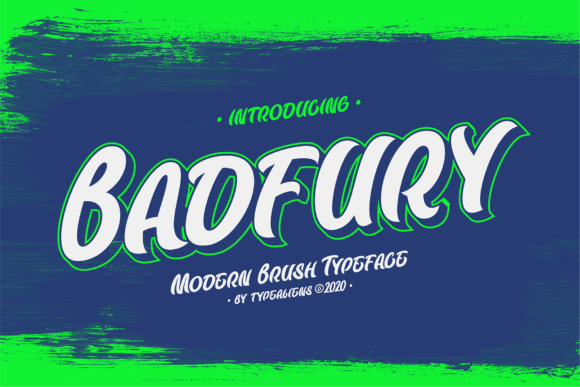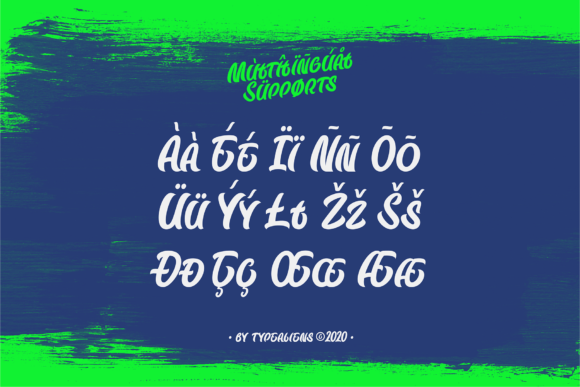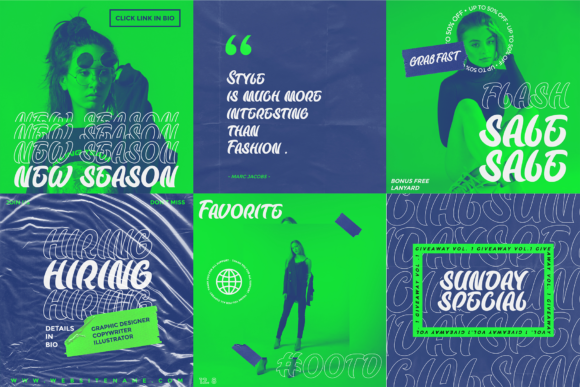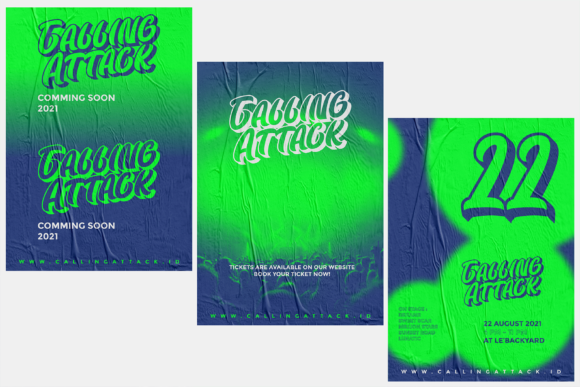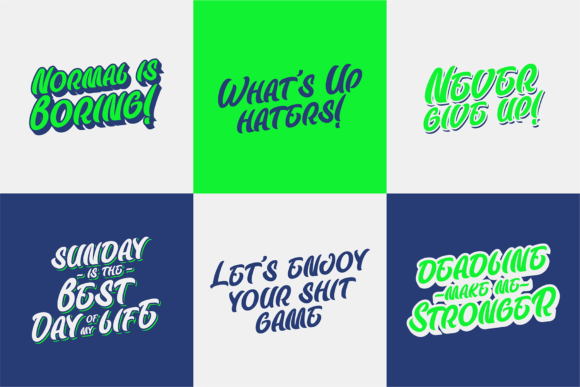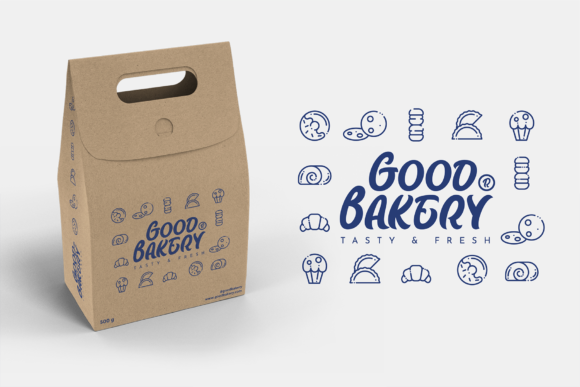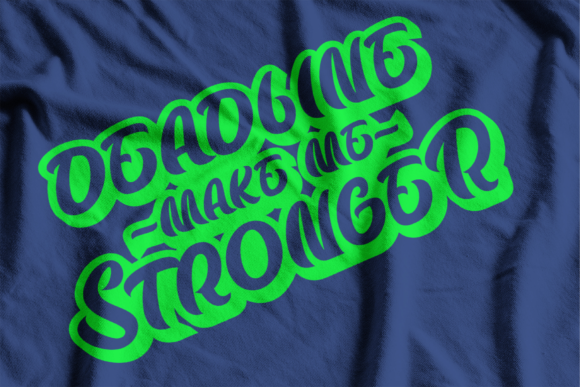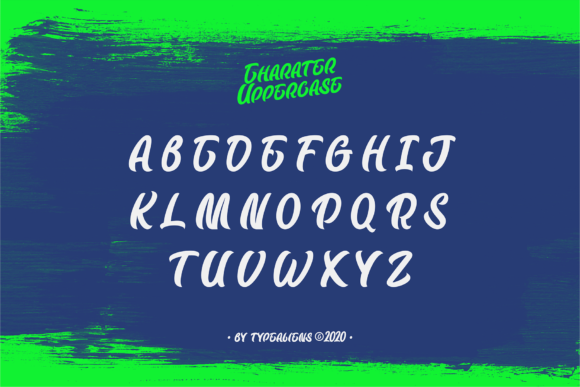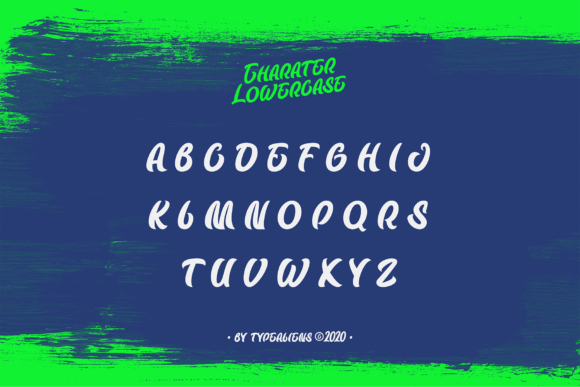
Badfury Font
About Badfury Font
Badfury is a magical handwritten font carefully created with a touch of elegance. It features an incredibly classic style, while still keeping a friendly feel. Badfury is the perfect font for making original and outstanding designs.